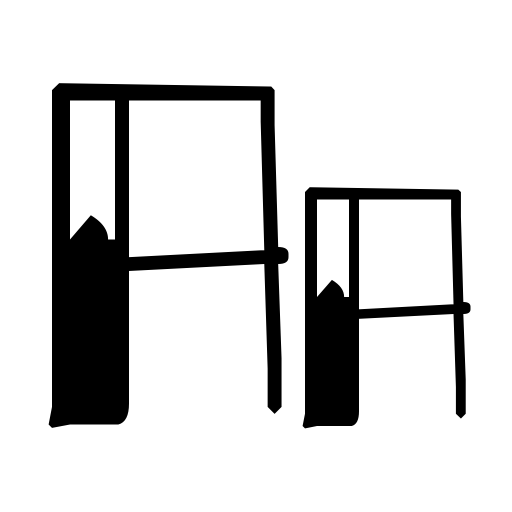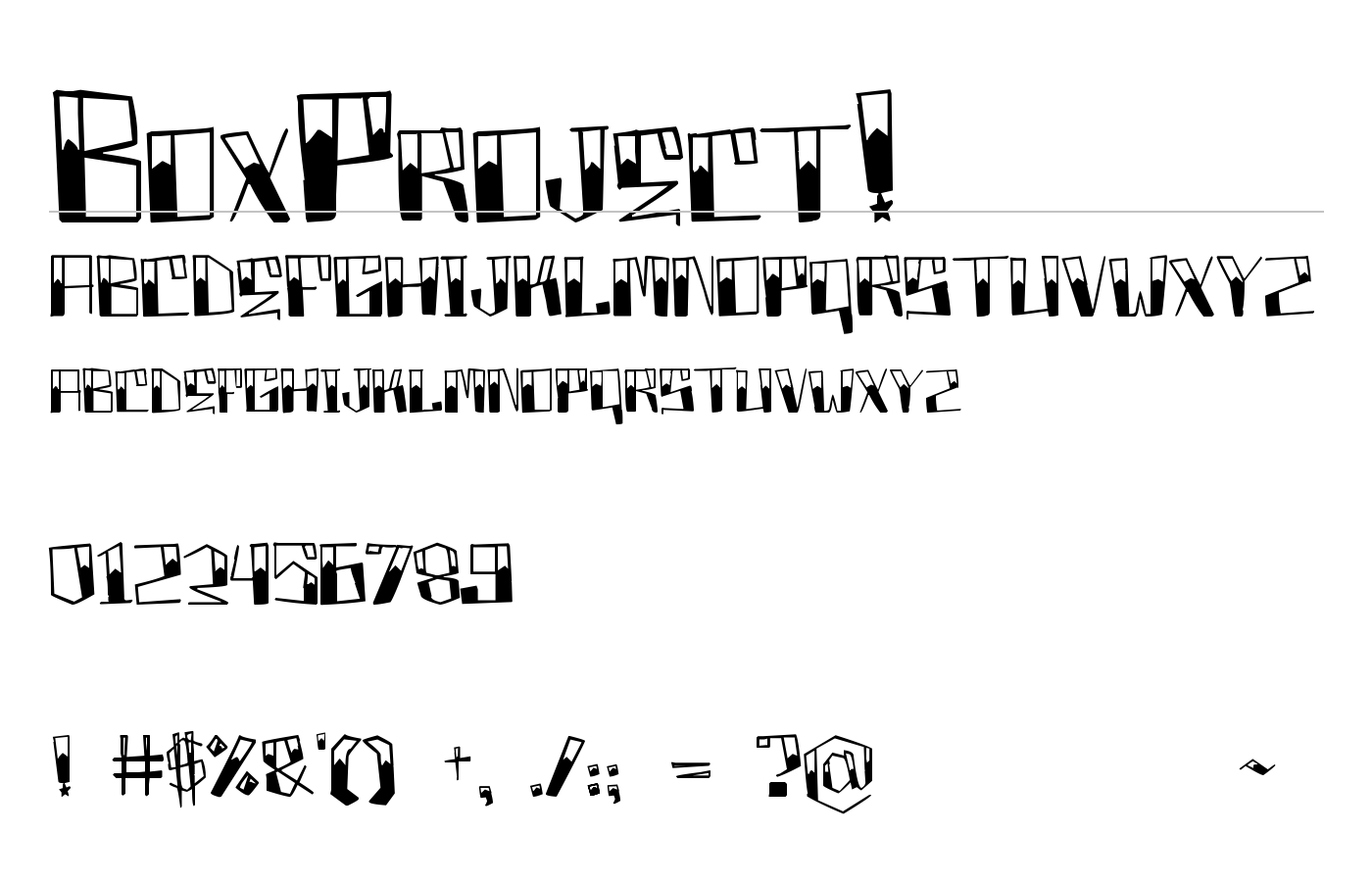
BoxProject! is a playful, bold display font with a unique, boxy geometric style that grabs attention with its quirky shapes and varied stroke weights. Its irregular, hand-drawn feel and mix of thick and thin areas make it perfect for creative projects, posters, and branding that want to stand out with a fun, unconventional personality. This font works best in large sizes where its distinctive character can shine and add a dynamic, artistic touch.
BoxProject! Font